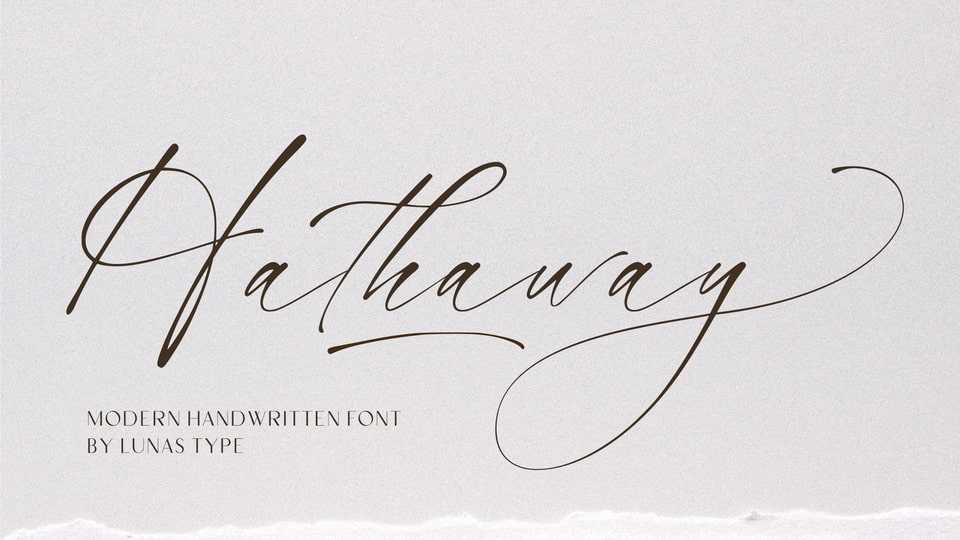
Download Hathaway font, a modern and stylish handwritten font. With natural flow it can add a human touch to your designs. Hathaway is perfect for many design needs such as merch and more.
Designer: Lunas Type